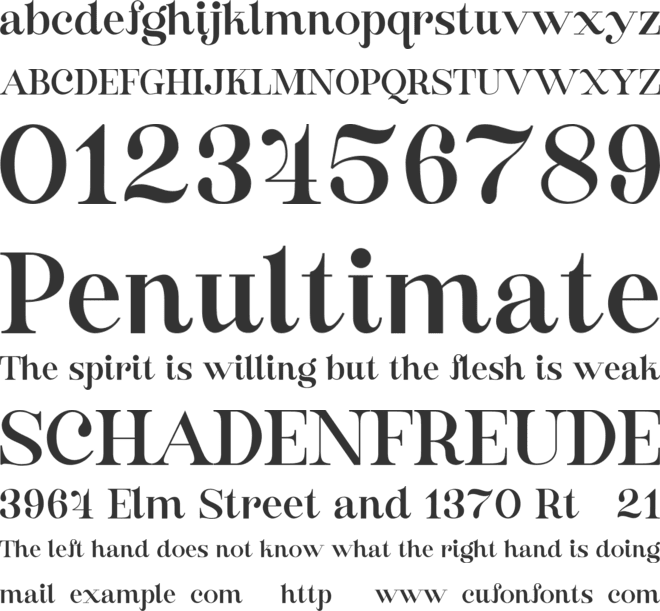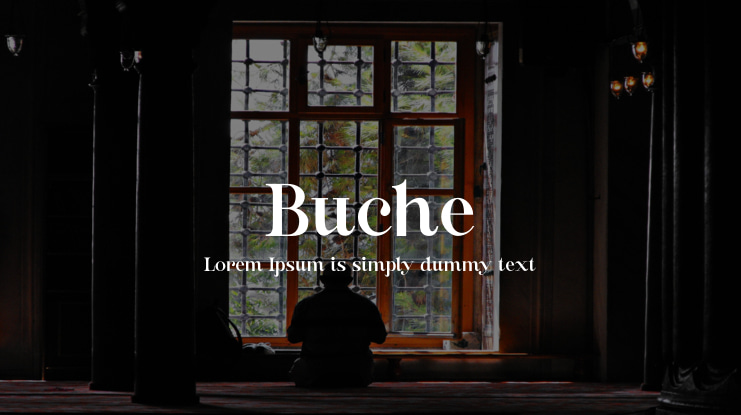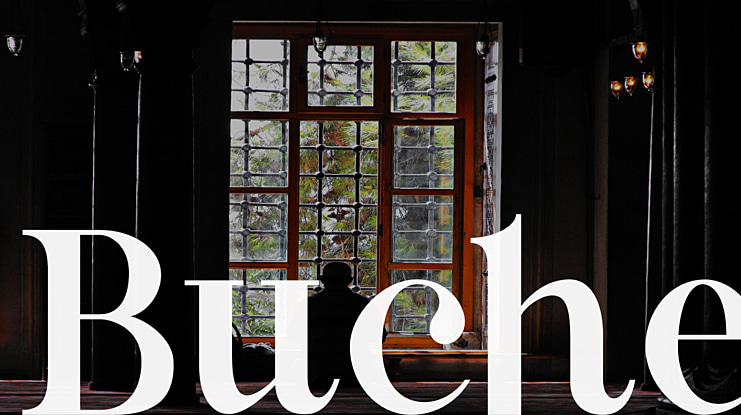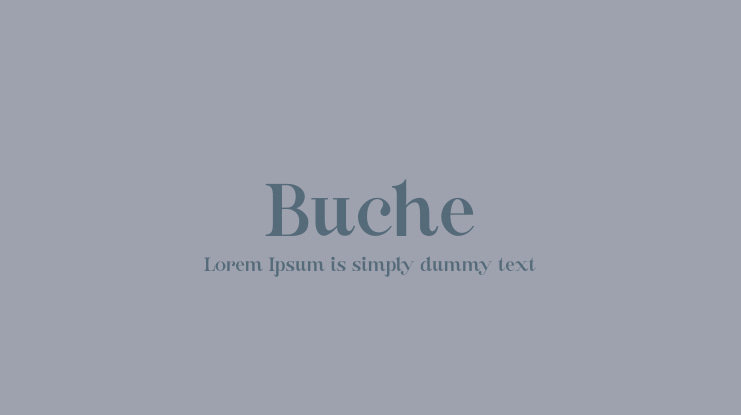
Buche Font
- 6 Weights
- 2 Styles (Regular and Italic)
- Basic Latin A-Z and a-z
- Numerals & Punctuation
- Stylistic Ligatures and Alternate glyps
- Multilingual Support for ä ö ü Ä Ö Ü …
Buche font preview